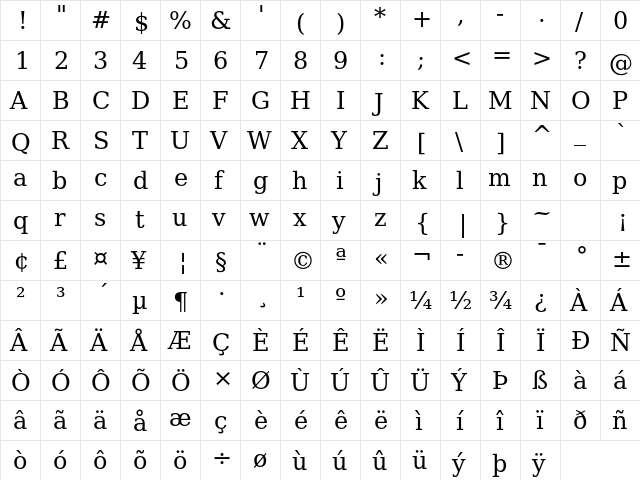
CheapProFonts Serif Pro Regular
| Designer | Jim Lyles |
Design Context for CheapProFonts Serif Pro Typeface
CheapProFonts Serif Pro brings classic typographic sensibility to the table — its serifs and measured letterforms reflect centuries of print heritage.
Pro Tip: Use CheapProFonts Serif Pro for editorial body copy and considered headline work. Pair with a neutral sans for UI elements or captions to create a classic hierarchy.